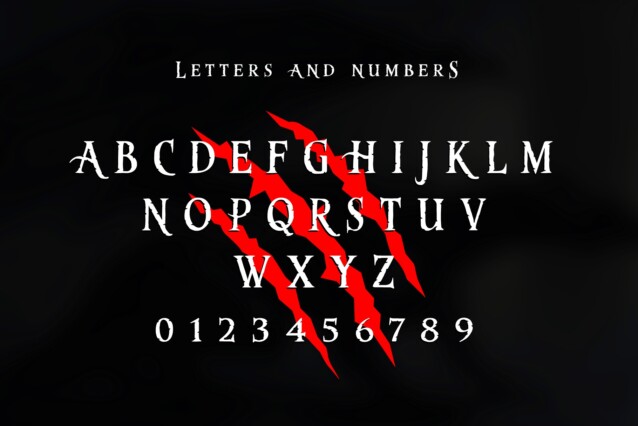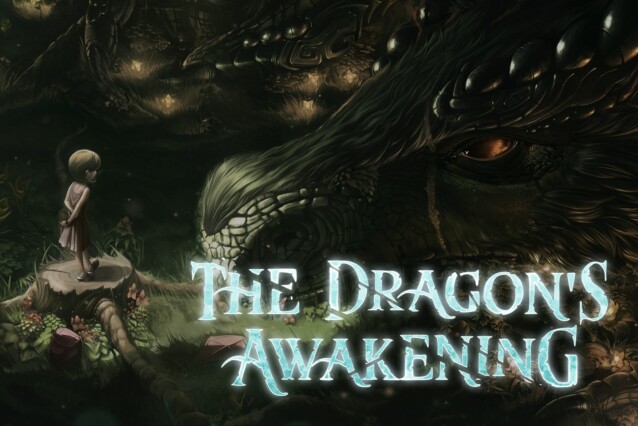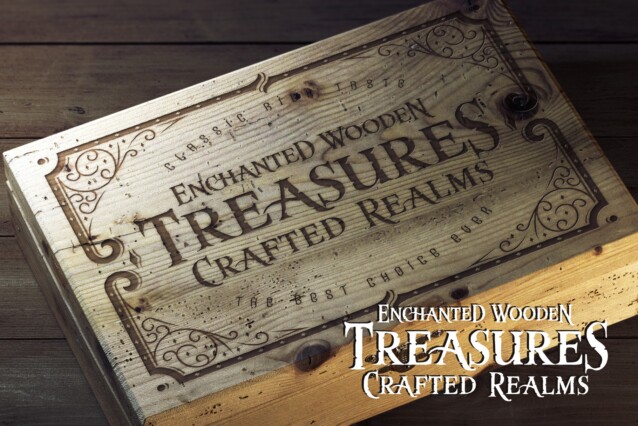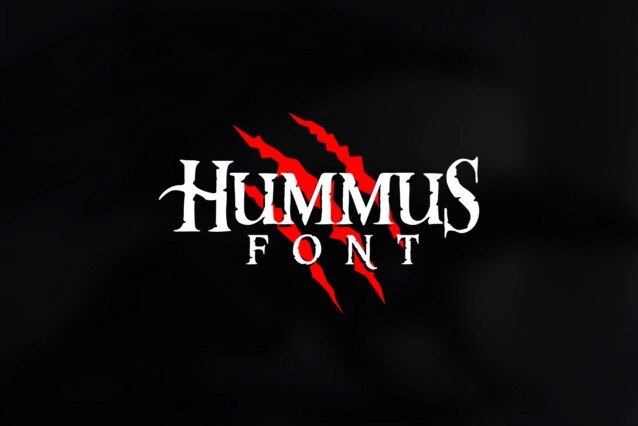
Hummus Font
Hummus Font is a refined and sleek typeface that exudes a modern yet classic charm. Hummus font will look great on invitations, packaging, slideshows, logos, headlines, lettering, posters, branding, inspirational quotes, headlines, magazine layouts, website designs, advertising, invitations, packaging designs, book covers and any other creative endeavour.